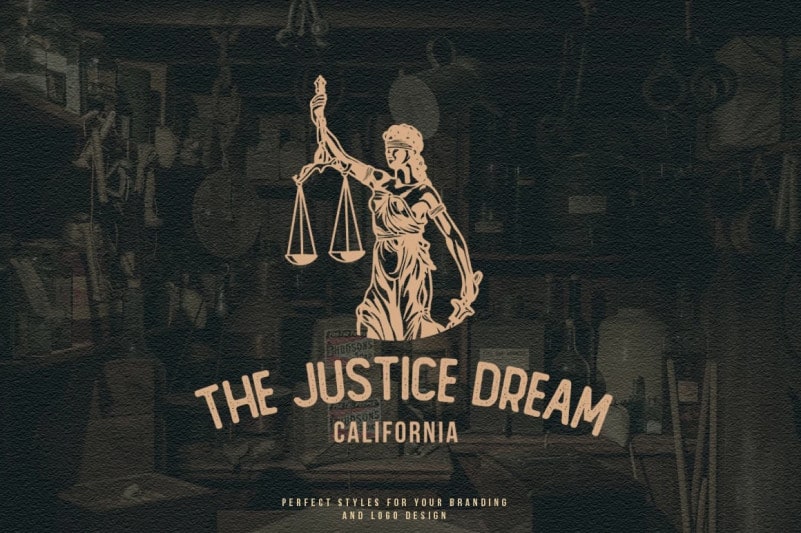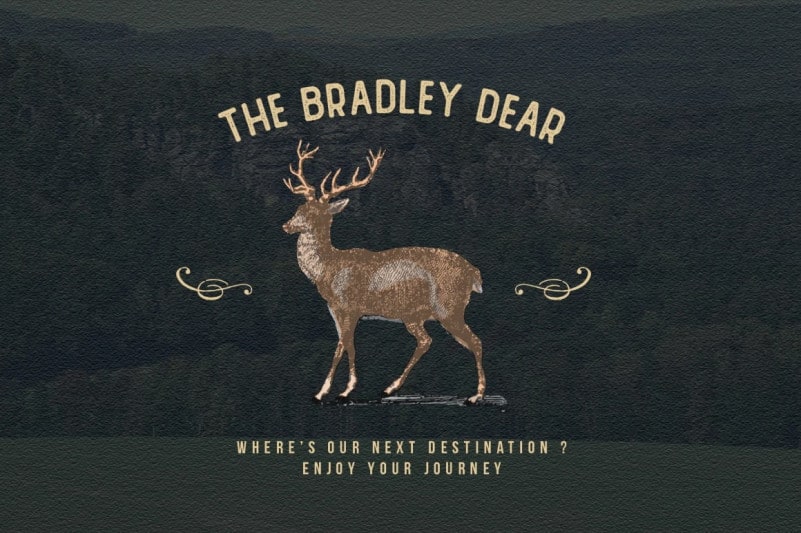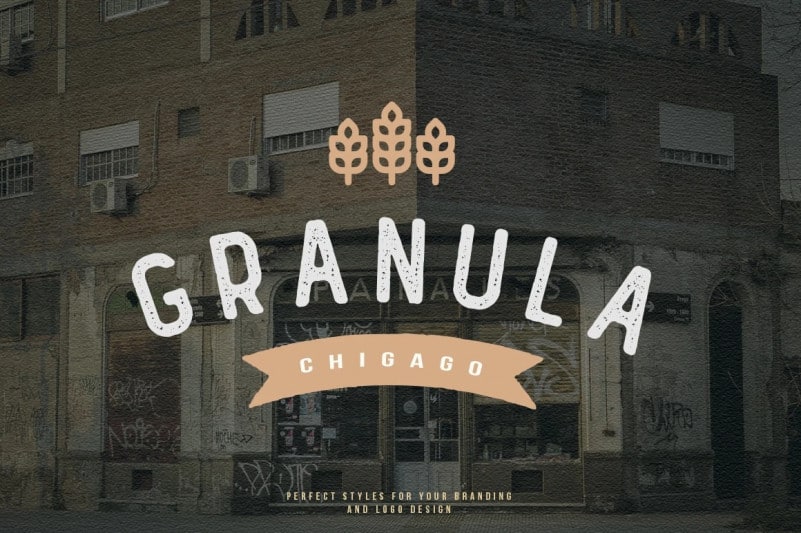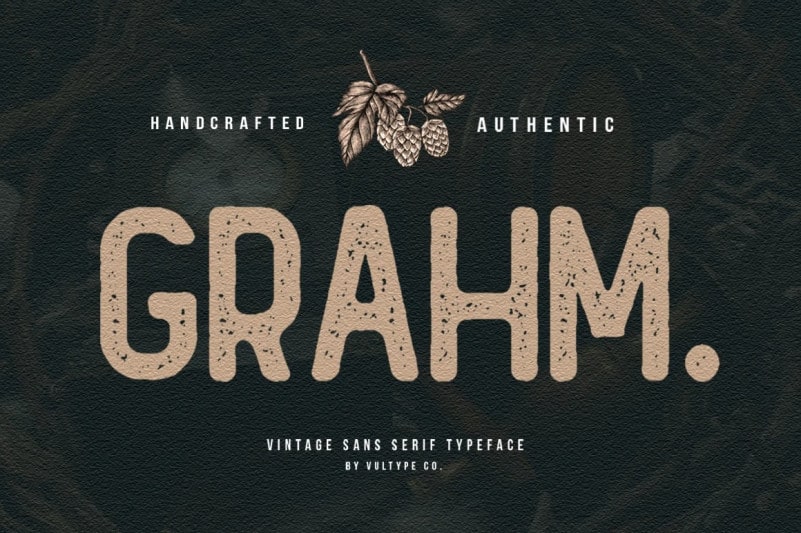
Grahm Display Font is a new rough typeface, design with the great outdoors main concepts in mind; In the topic of brand development works very good as the main font or the secondary font. This typeface is a Font from the designer Vultype. It’s vintage sans serif font with 2 font styles including Regular and rough style. Made carefully to create the perfect texture and suitable for each of your projects also great for Logotype, Branding Design, Logo Design, Digital Lettering Arts, T-Shirt/Apparel, Poster, Magazine, Signs, Advertising Design, and any vintage design needs.